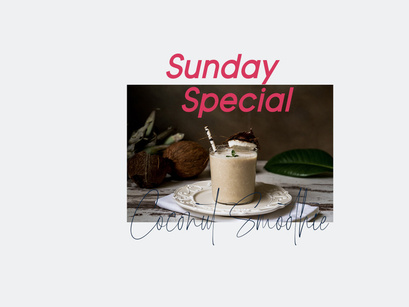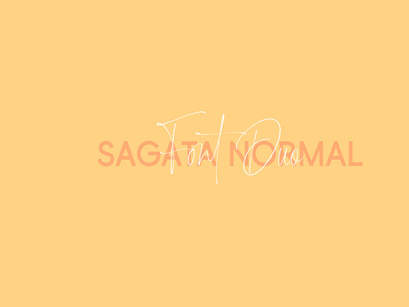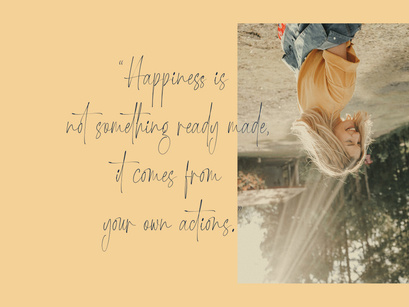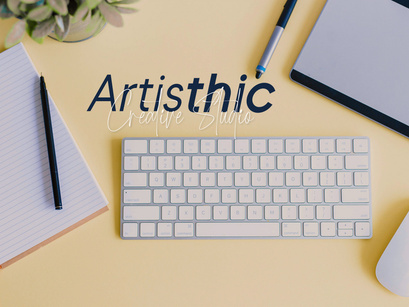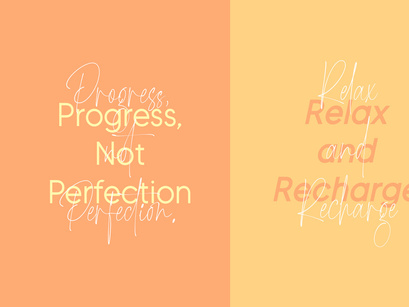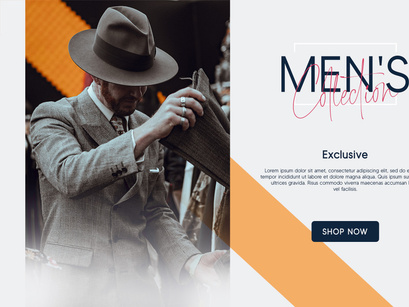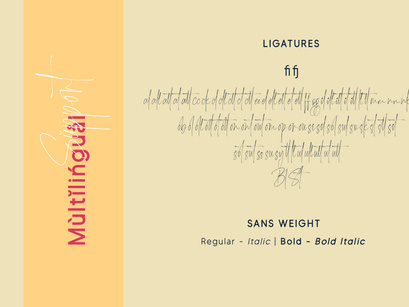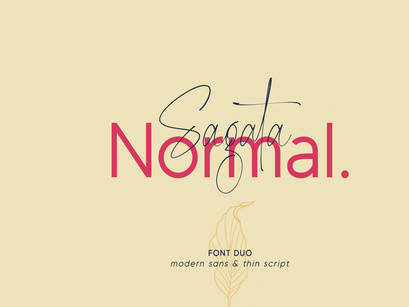
Sagata Normal Font Duo, perfect for product packaging, branding project,
magazine, social media, and much more. Explore the best your side.
Sans Serif & Script
Ligatures
Uppercase and Lowercase letters
Numbering and Punctuations
Also Multilingual Support